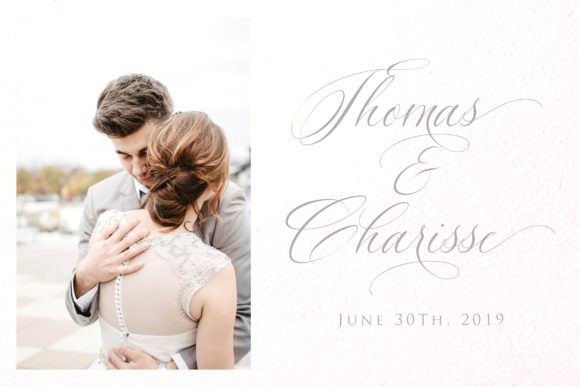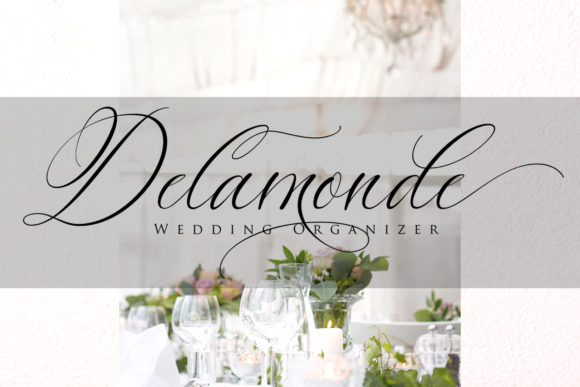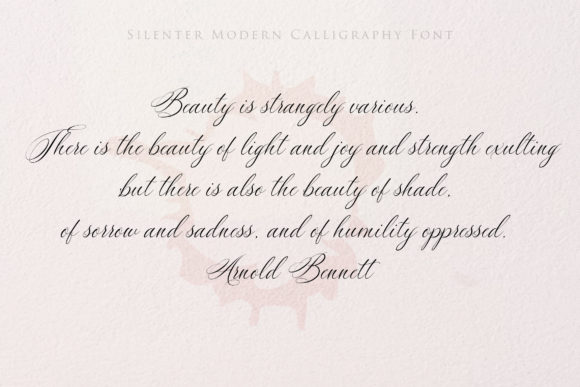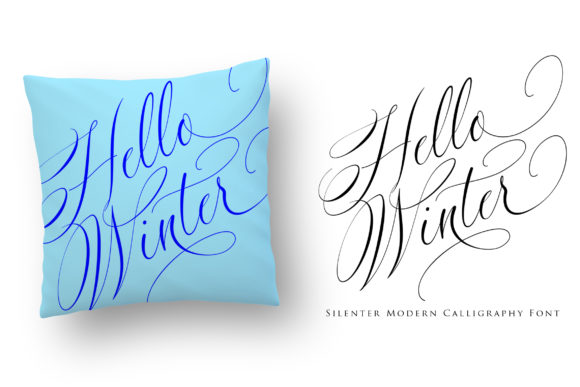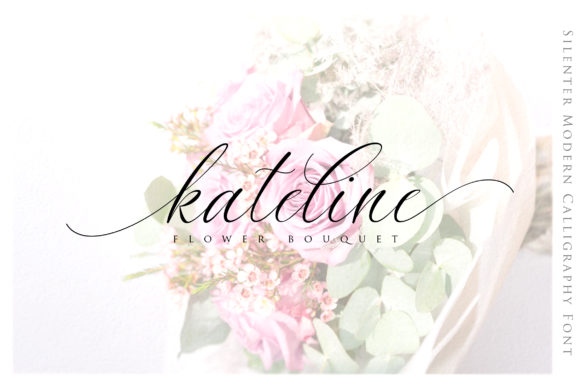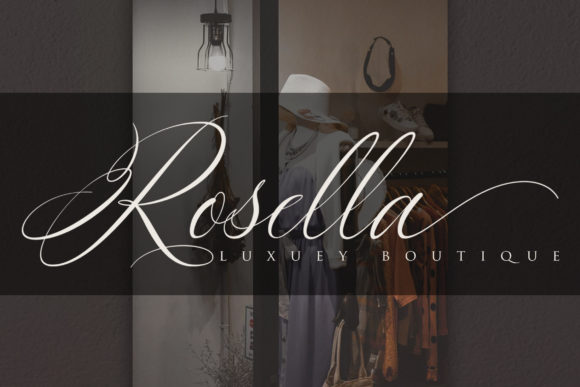
Introduction to Silenter Font
Silenter is a delicate and charming handwritten font with a bold feel.
Use it to add a sophisticated spark to any design project .
Key Features of Silenter Font